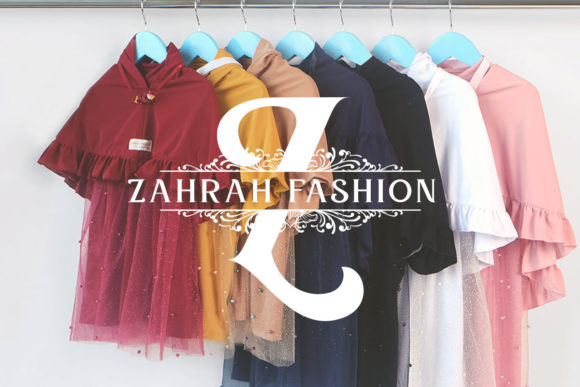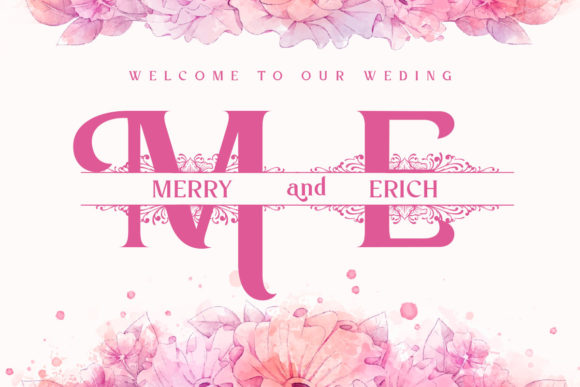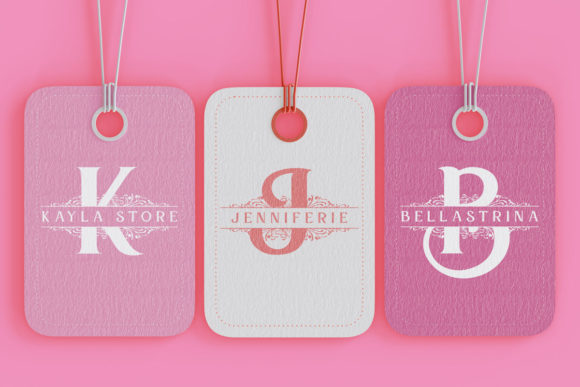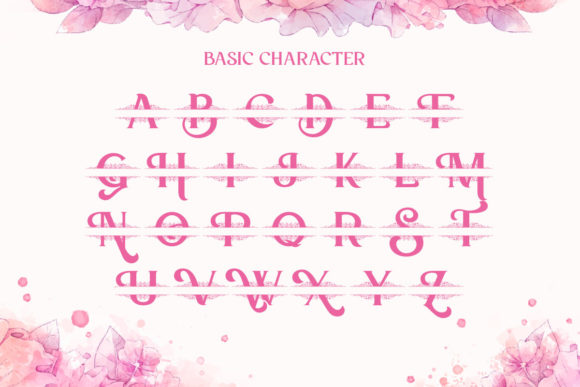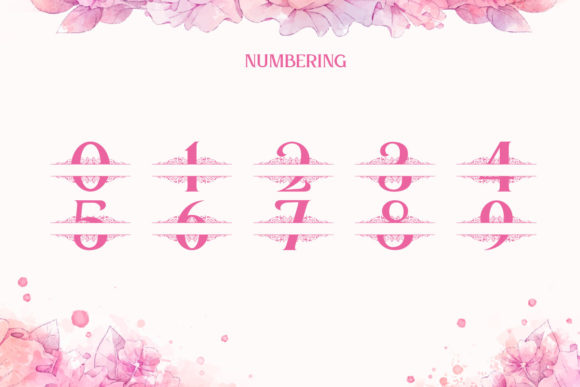
Aqueela Monogram Font: Elevate Your Designs with Elegance
Aqueela is an outstanding monogram display font that has been masterfully designed to become a true favorite among designers and crafters. With its unique and elegant style, this font has the potential to bring each of your creative ideas to the highest level. In this article, we’ll dive into the features and benefits of Aqueela Monogram Font, and explore how it can elevate your designs and take your creativity to new heights.
What is Aqueela Monogram Font?
Aqueela Monogram Font is a carefully crafted display font that specializes in monogram designs. Its distinctive style is perfect for creating stunning logos, branding materials, and decorative elements that require a touch of sophistication. The font’s design is characterized by its elegant lines, curves, and flourishes, which come together to create a truly unique and eye-catching visual identity.
Key Features of Aqueela Monogram Font
- Unique Monogram Designs: Aqueela Monogram Font offers a wide range of monogram designs that are perfect for creating custom logos, branding materials, and decorative elements.
- Elegant Style: The font’s elegant style is characterized by its smooth lines, curves, and flourishes, making it perfect for designs that require a touch of sophistication.
- High-Quality Vector Graphics: Aqueela Monogram Font is designed as high-quality vector graphics, ensuring that your designs look crisp and clear even at large sizes.
Benefits of Using Aqueela Monogram Font
So, why should you choose Aqueela Monogram Font for your designs? Here are just a few benefits of using this amazing font:
- Stand Out from the Crowd: With Aqueela Monogram Font, you can create unique and eye-catching designs that stand out from the crowd.
- Elevate Your Brand: The font’s elegant style is perfect for creating professional and sophisticated branding materials that elevate your brand and make it more memorable.
- Save Time and Effort: Aqueela Monogram Font is easy to use and comes with a wide range of pre-designed monogram templates, saving you time and effort in your design process.
- Endless Creative Possibilities: The font’s versatility and flexibility make it perfect for a wide range of design applications, from logos and branding materials to decorative elements and craft projects.
In conclusion, Aqueela Monogram Font is an outstanding display font that has the potential to elevate your designs and take your creativity to new heights. With its unique and elegant style, high-quality vector graphics, and ease of use, this font is perfect for designers and crafters who want to create stunning logos, branding materials, and decorative elements. Whether you’re looking to stand out from the crowd, elevate your brand, or simply add a touch of sophistication to your designs, Aqueela Monogram Font is the perfect choice.